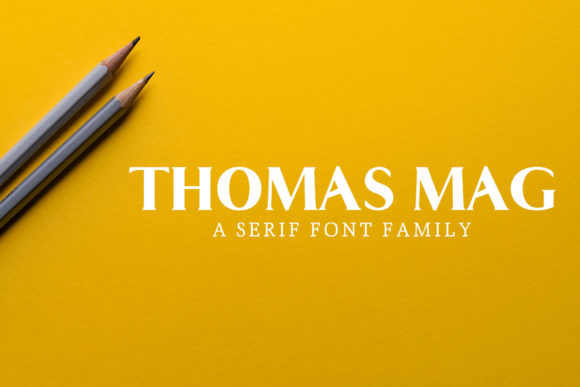
Embark on a typographic adventure with the Thomas Mag Family Font, a serif font family crafted to captivate and intrigue. This extraordinary font collection offers a symphony of styles, from classic to contemporary, each note striking the perfect chord of elegance and sophistication. Whether you're designing logos, crafting headlines, or seeking the perfect font for a quote tattoo, Thomas Mag holds the key to unlocking your creative potential.
Immerse yourself in a world of visual harmony as Thomas Mag effortlessly complements other fonts, designs, and styles. Its graceful curves and refined lines dance together, creating a visual masterpiece that will leave you breathless. From playful projects to serious endeavors, Thomas Mag adapts seamlessly, becoming an integral part of your creative journey.
Step into the realm of boundless creativity, where Thomas Mag transforms your words into art. Its versatility knows no bounds, allowing you to explore a myriad of design possibilities. Whether you seek a timeless classic or a modern marvel, Thomas Mag stands ready to elevate your designs to new heights. Unleash your imagination and let the beauty of typography enchant you, for Thomas Mag is the font that dreams are made of.